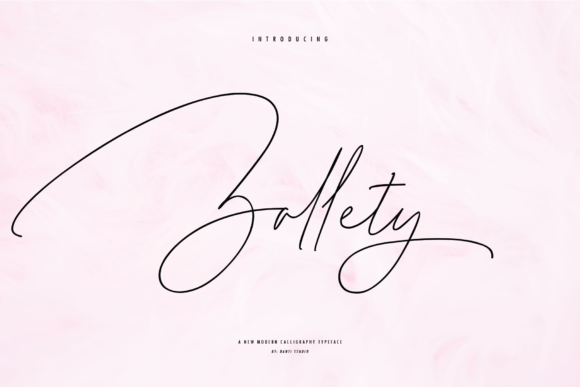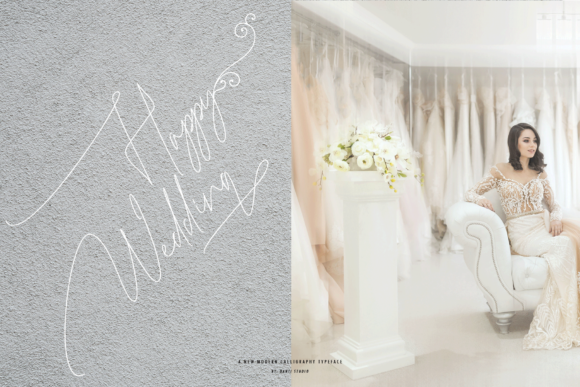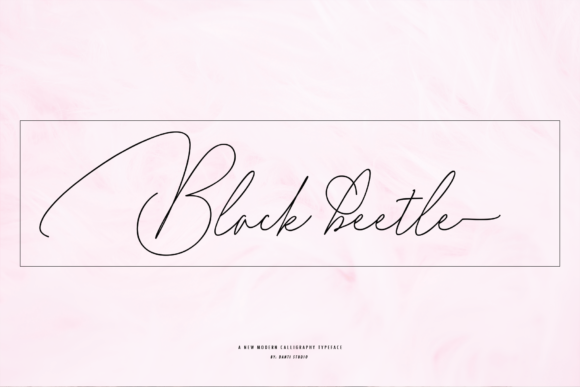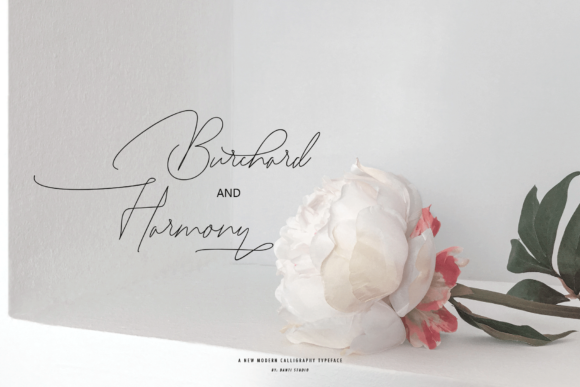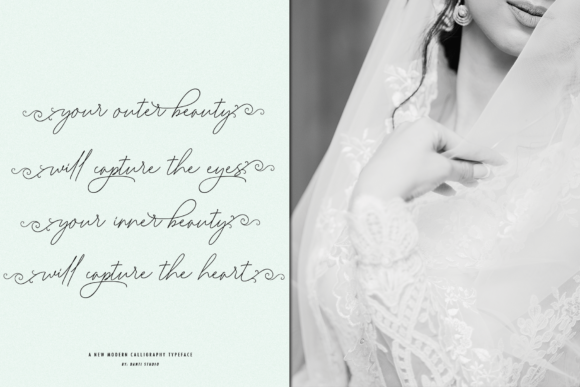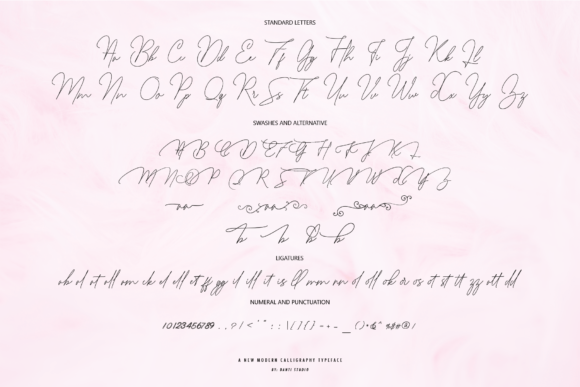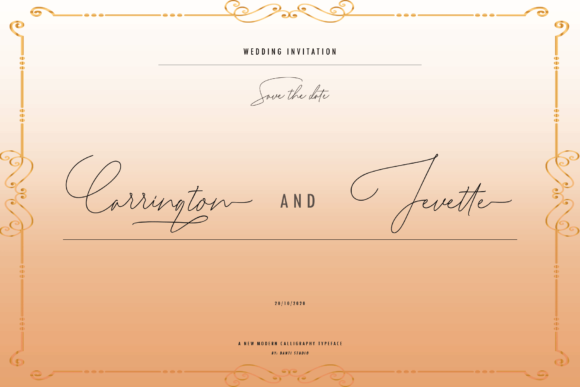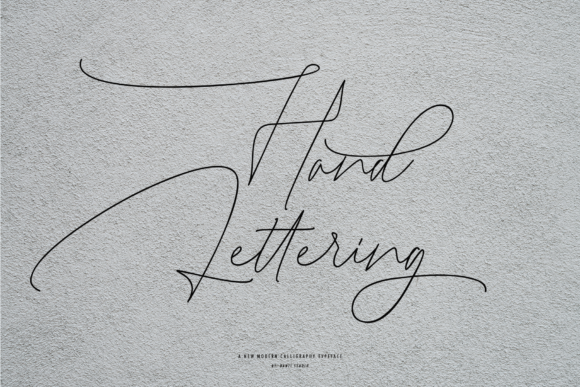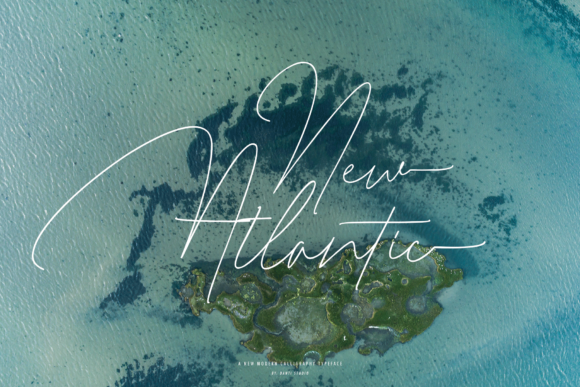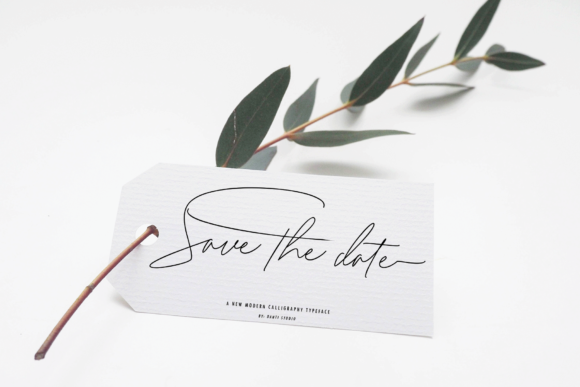
Zallety Signature Font
About Zallety Signature Font
Zallety is a beautiful and light handwritten font with lots of authenticity! Fall in love with its striking charm, and turn any design project into a stunner!